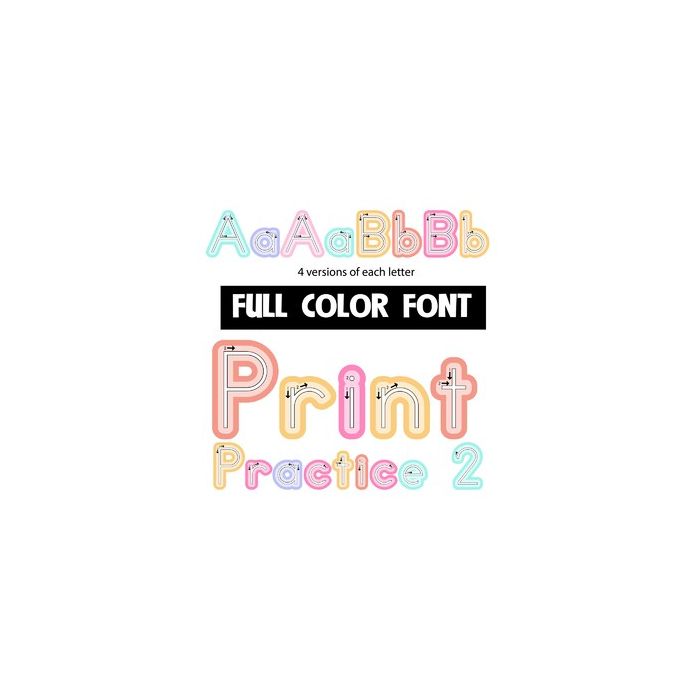
This full-color font features pastel lettering with teaching/practice arrows and numbers to help a student learn to print. There is a secondary color of each letter you can access through your system's or Silhouette's glyph map.